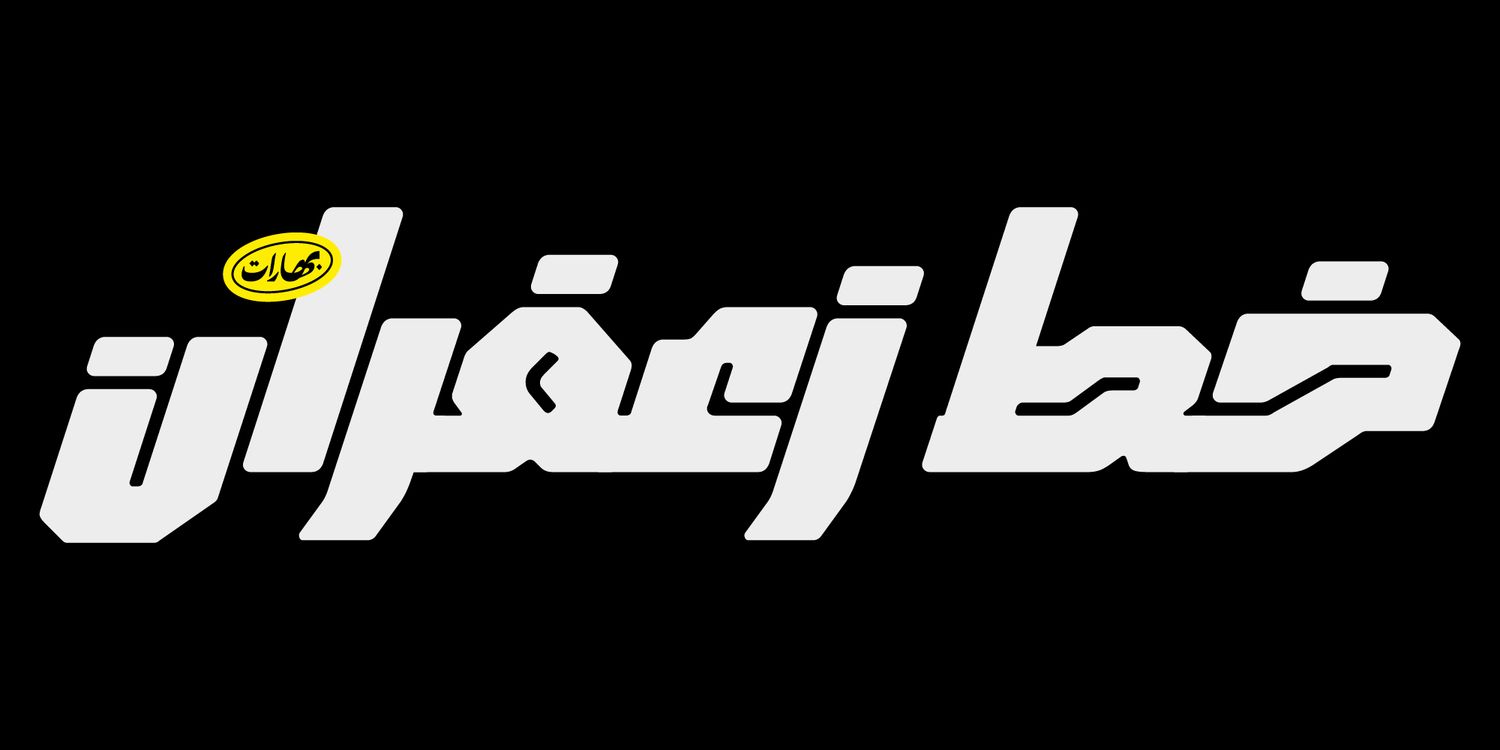
Zafran is an elegant industrial display typeface, full of curves and sharp angles, the typeface has an oblique feeling and unified spaces that create neat alignments.